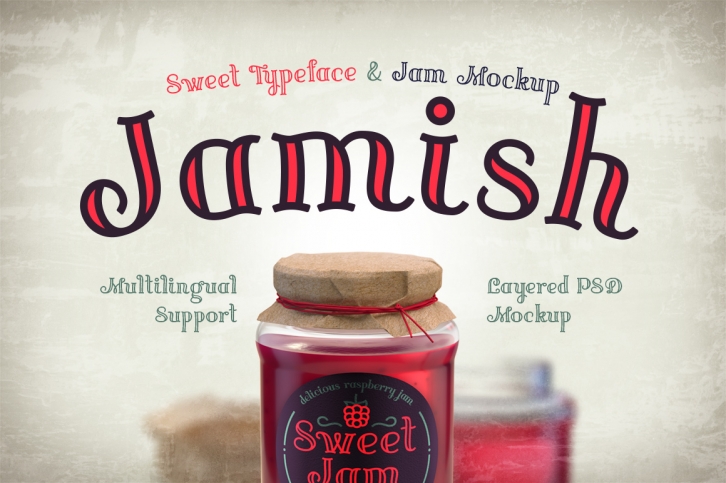
Jamish & Mockup is a beautiful font that was designed by Gleb Guralnyk. It's a great choice for designers and creatives who need such a font. It was released on June 1, 2018 and the file size is 15.27 MB. Jamish & Mockup may give a more youthful, expressive and casual look to your project. It is a very beautiful, refined, elegant, and high-quality font.